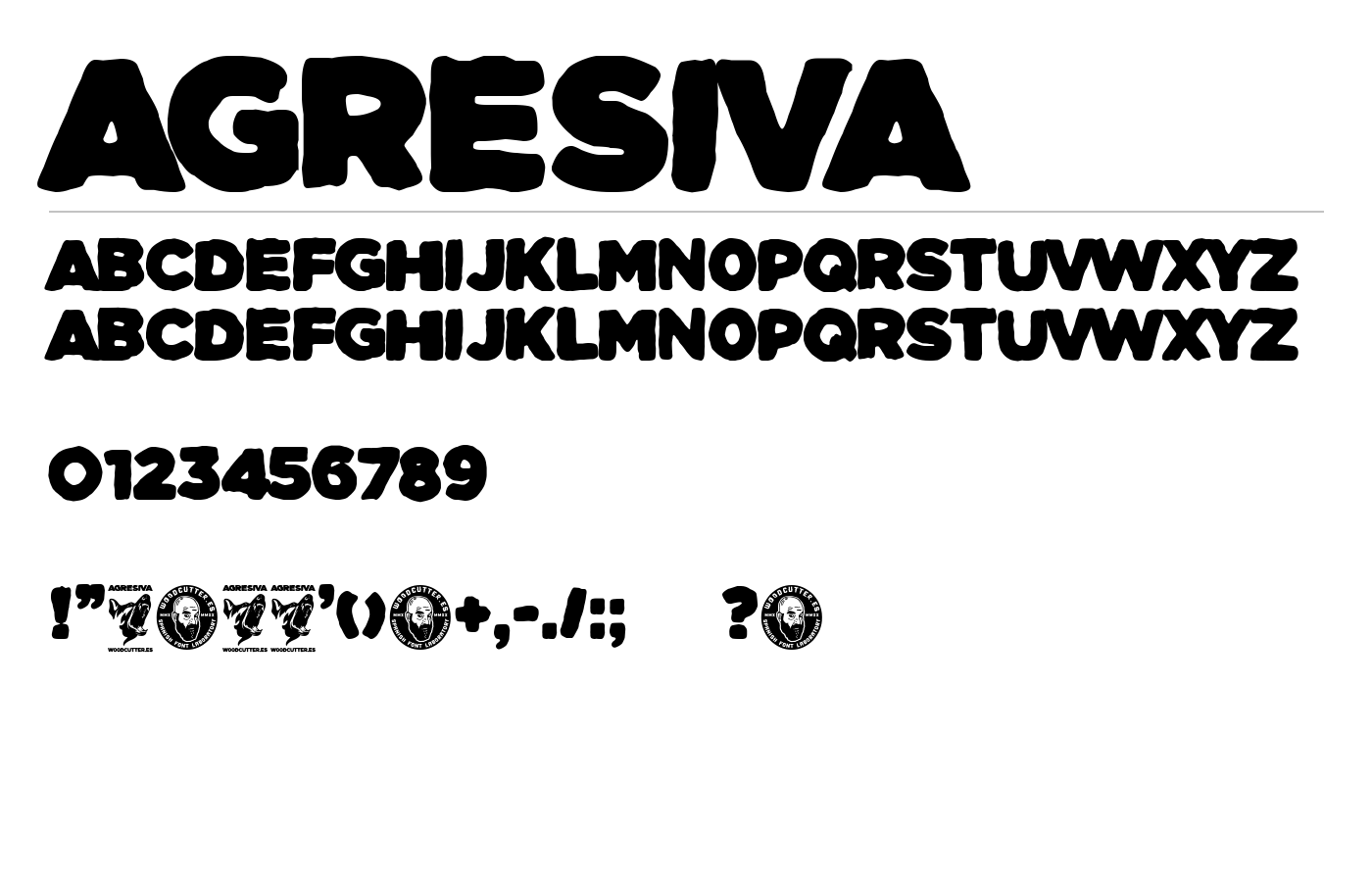
Agresiva is a bold, chunky sans serif font with a playful, hand-drawn feel. Its heavy weight and irregular, rounded shapes give it a friendly yet assertive personality, making it perfect for eye-catching headlines, posters, and branding that want to convey energy and creativity. This font works best in informal or artistic designs where a strong, approachable impact is desired.
Agresiva Font
About Agresiva Font